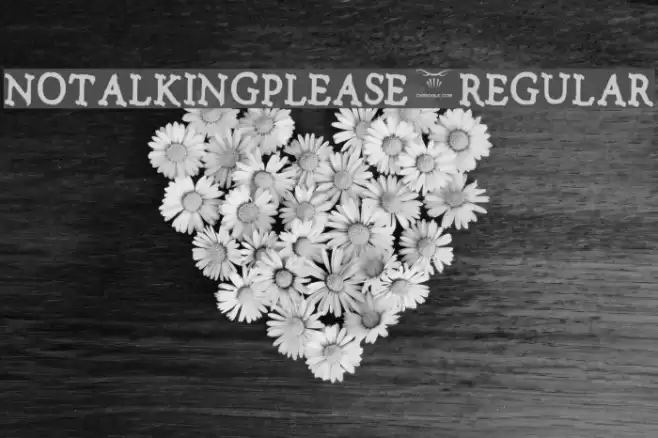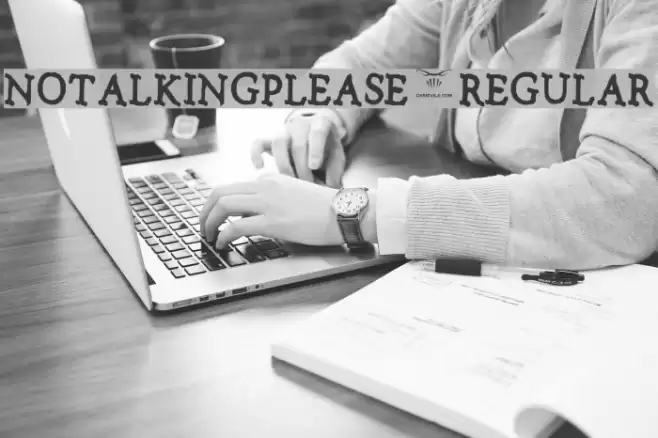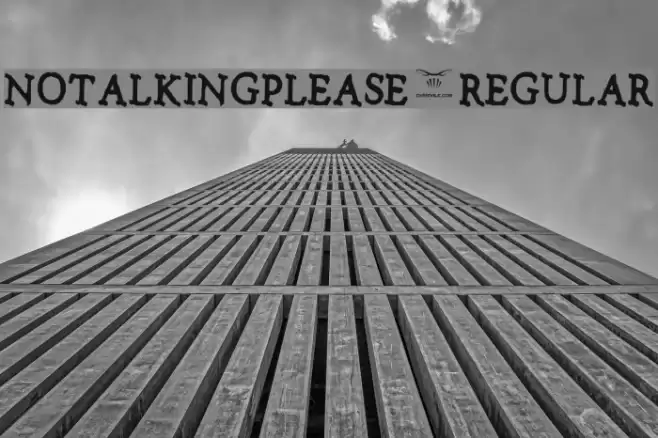
Notalkingplease-Regular Font
Notalkingplease-Regular Description
This font features a bold and playful design with a slightly distressed appearance, giving it a hand-drawn, organic feel. The characters have a unique, irregular edge that adds to its charm and makes it stand out. The uppercase letters are prominent and well-defined, while the lowercase letters maintain a consistent style that complements the overall look. The numbers and special characters are crafted with the same attention to detail, ensuring a cohesive appearance across all elements. This font is ideal for projects that require a touch of whimsy and creativity.
A bold, playful font with a hand-drawn, distressed look from Uncategorized fonts.
- Proposed Projects: Perfect for children's books, playful branding, creative posters, and unique invitations.
- Overall Style: Playful, Hand-drawn, Organic